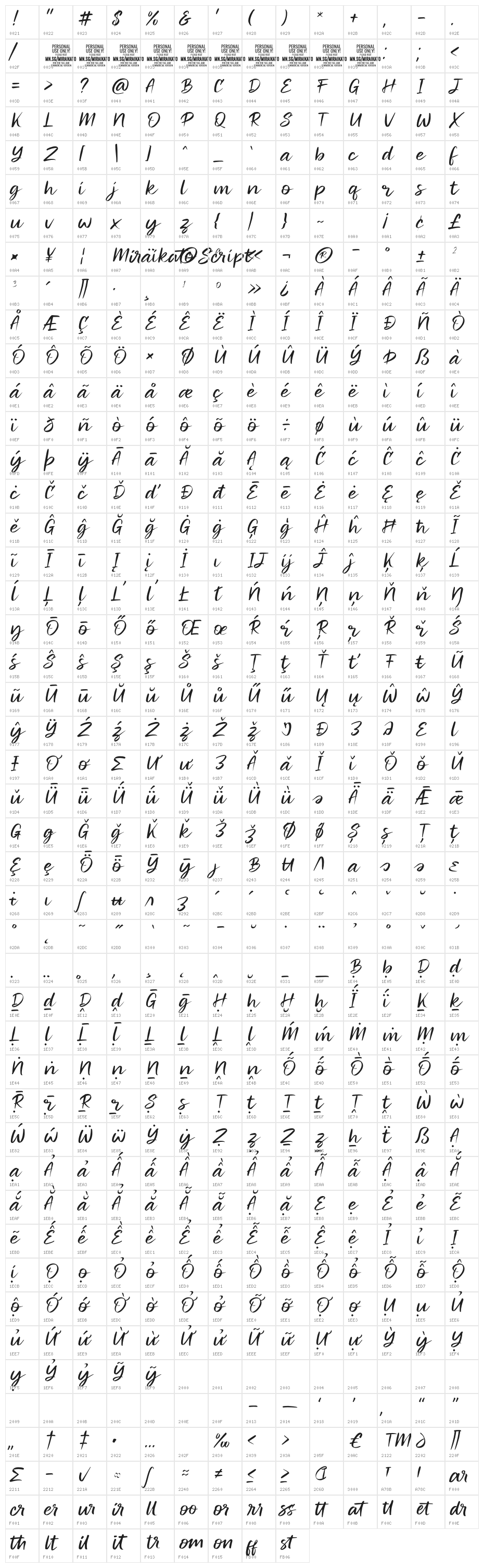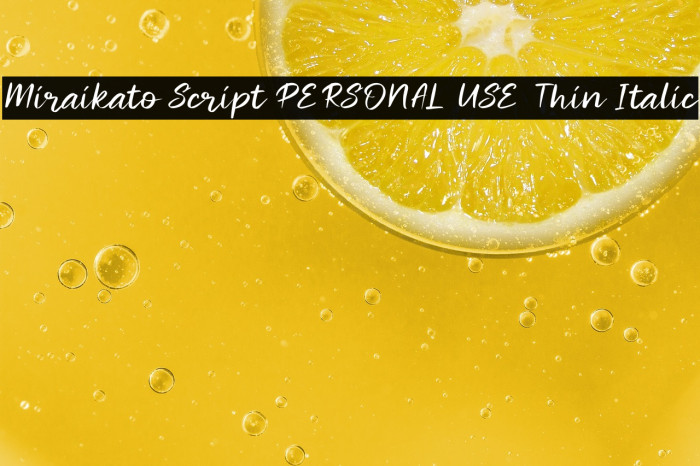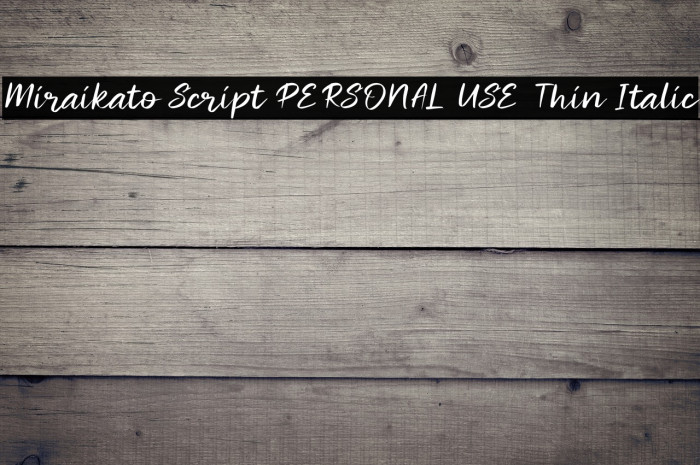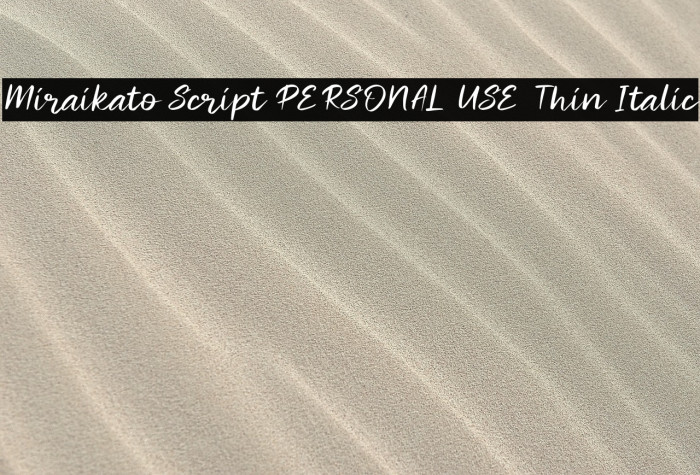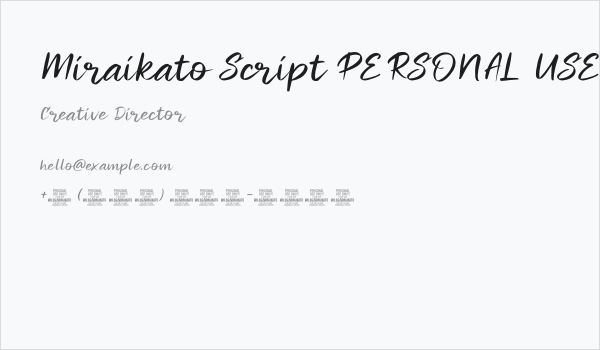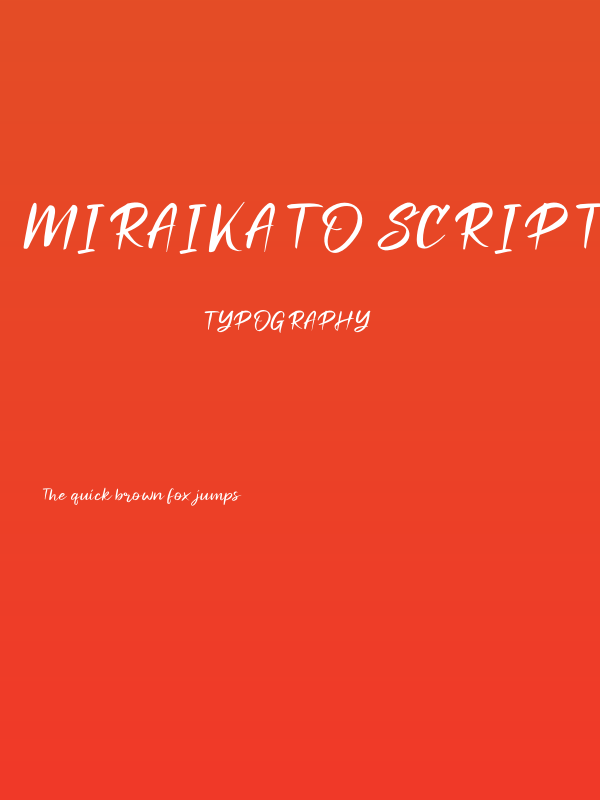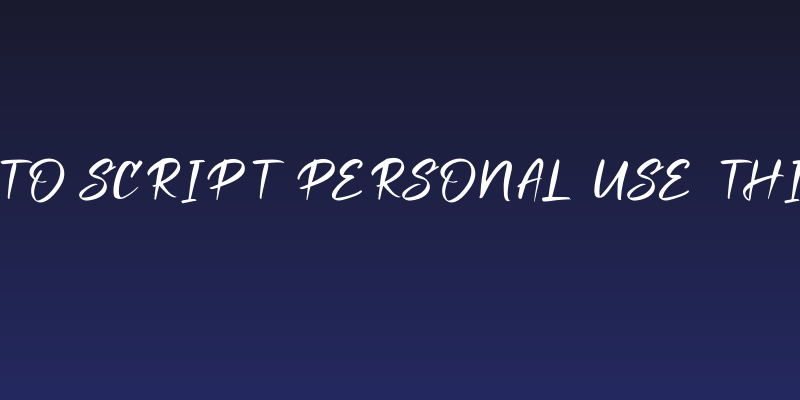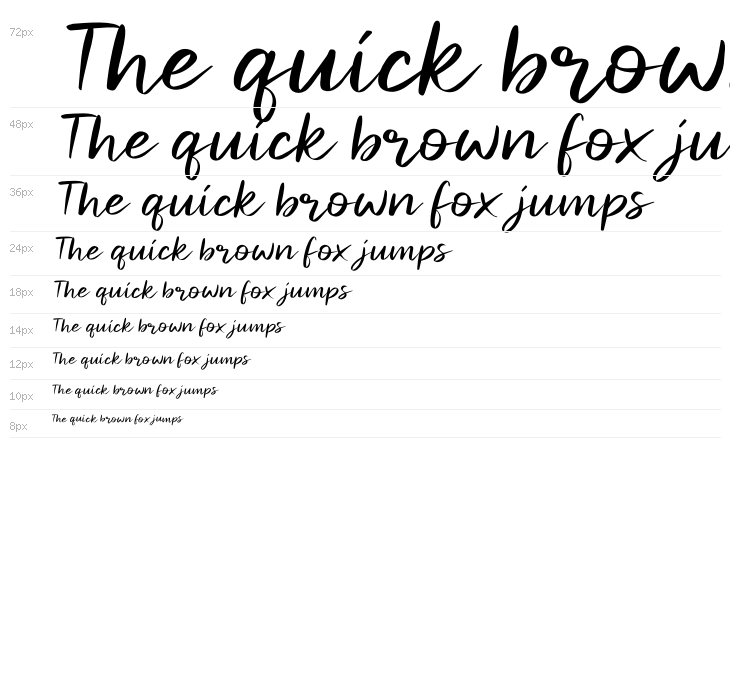
Miraikato Script PERSONAL USE Thin Italic Font
Miraikato Script PERSONAL USE Thin Italic Description
This script font features a dynamic and flowing style, characterized by its thin and elegant strokes. The letters are slightly slanted, giving it an italicized appearance that enhances its graceful and fluid nature. The uppercase letters are bold and prominent, while the lowercase letters maintain a consistent flow, making it ideal for creating a sense of movement and elegance. The font includes a full set of uppercase and lowercase letters, numbers, and a variety of special characters, allowing for versatile use in different design contexts. Its thin strokes and cursive style make it suitable for projects that require a personal and artistic touch.
| Overall Style | Elegant, Artistic |
| Proposed Projects | Ideal for wedding invitations, greeting cards, personal branding, and artistic projects that require a touch of elegance and sophistication. |